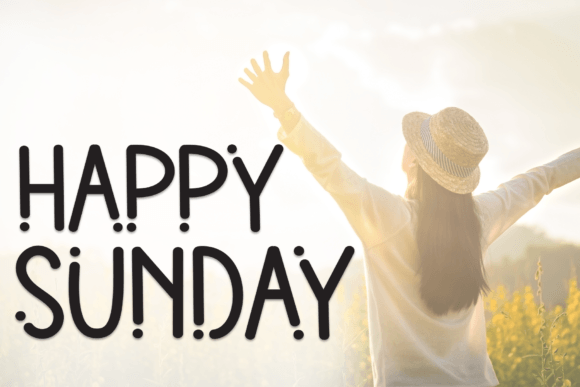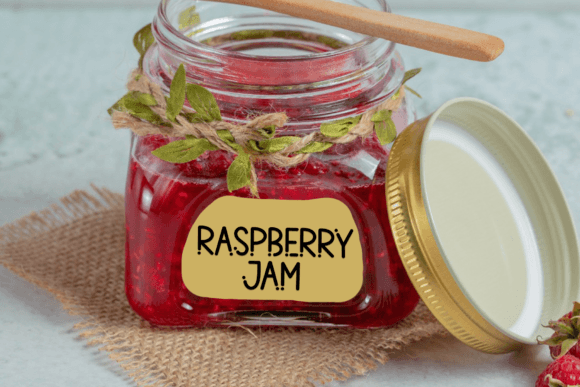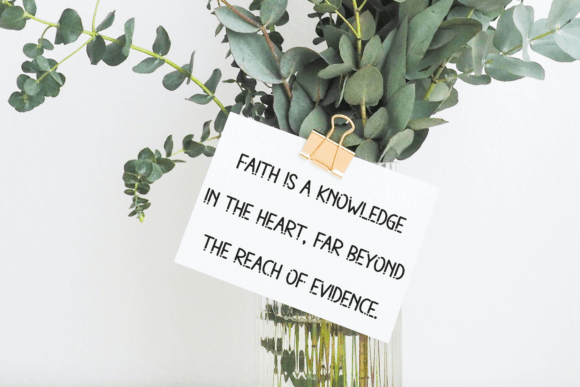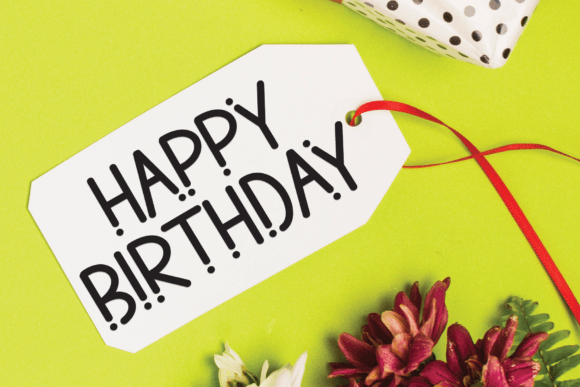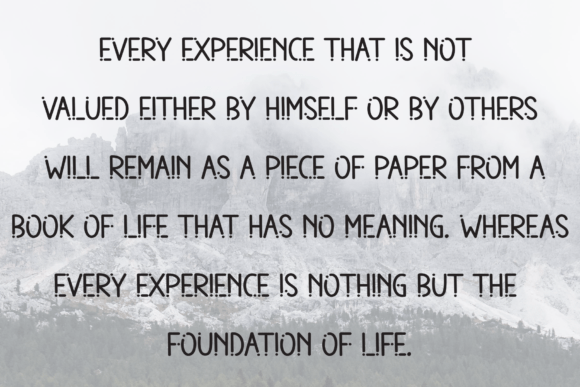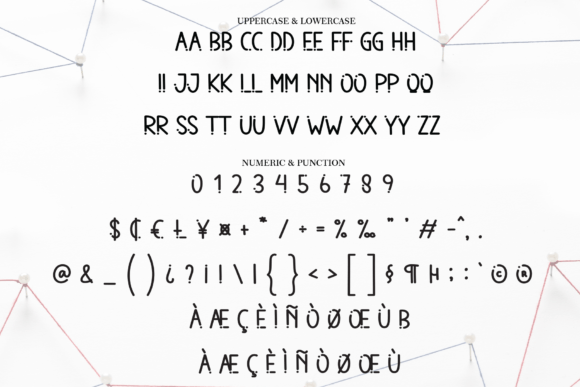
Introducing Dot Line Font: The Sweet and Friendly Handwritten Display Font
Are you looking for a font that can add a touch of whimsy and fun to your designs? Look no further than Dot Line Font! This sweet and friendly handwritten display font is perfect for creating eye-catching wedding invitations, cards, and other designs that need a playful twist.
What Makes Dot Line Font Special?
Dot Line Font is a unique and charming font that is sure to capture the attention of your audience. Its handwritten style gives it a personal and approachable feel, making it ideal for designs that require a touch of warmth and personality. The font’s playful and carefree vibe makes it perfect for a variety of design projects, from wedding invitations and cards to posters and social media graphics.
Characteristics of Dot Line Font
- Cute and Fun: Dot Line Font is a font that is sure to put a smile on your face. Its playful and whimsical style makes it perfect for designs that need a fun and lighthearted touch.
- Handwritten Style: The font’s handwritten style gives it a personal and unique feel that is sure to make your designs stand out.
- Display Font: Dot Line Font is a display font, making it perfect for headlines, titles, and other design elements that need to make a statement.
- Versatile: The font is versatile and can be used for a variety of design projects, from wedding invitations and cards to posters and social media graphics.
Uses for Dot Line Font
Dot Line Font is a versatile font that can be used for a variety of design projects. Here are some ideas to get you started:
- Wedding Invitations: Add a touch of whimsy and romance to your wedding invitations with Dot Line Font.
- Cards: Create fun and playful cards for birthdays, holidays, and other special occasions.
- Posters: Use Dot Line Font to create eye-catching posters for events, promotions, and other marketing campaigns.
- Social Media Graphics: Add a touch of personality to your social media graphics with Dot Line Font.
- DIY Crafts: Use Dot Line Font to create custom titles and headings for your DIY craft projects, such as scrapbooking, journaling, and more.
Tips for Using Dot Line Font
Here are some tips for using Dot Line Font in your designs:
- Pair with Other Fonts: Pair Dot Line Font with other fonts to create a unique and interesting contrast.
- Use for Headlines: Use Dot Line Font for headlines and titles to add a touch of personality to your design.
- Keep it Simple: Keep your design simple and clean to let Dot Line Font shine.
Dot Line Font is a sweet and friendly handwritten display font that is perfect for adding a touch of whimsy and fun to your designs. Its playful and carefree vibe makes it ideal for a variety of design projects, from wedding invitations and cards to posters and social media graphics. With its unique and charming style, Dot Line Font is sure to capture the attention of your audience and make your designs stand out.